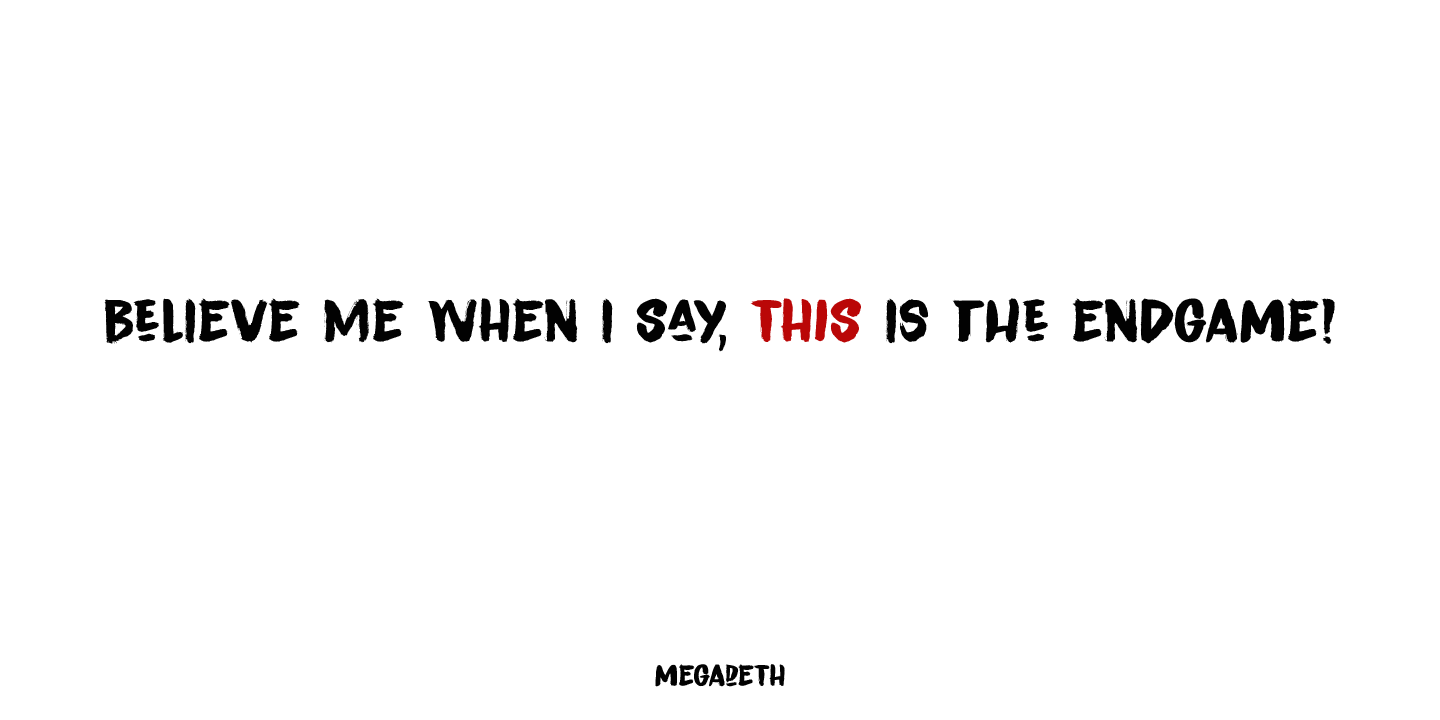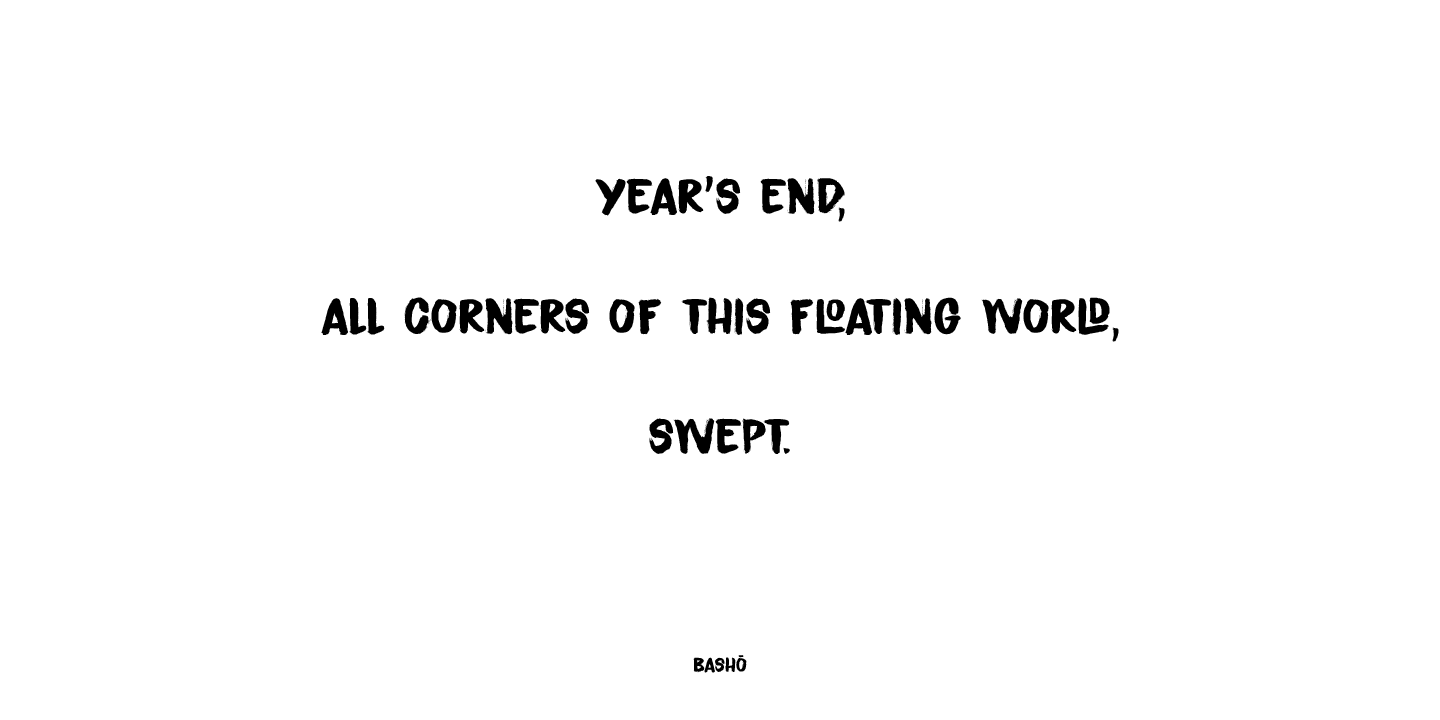
About Endgame
Endgame font was made using a very, VERY bad brush and Chinese ink. I had bought a bunch of brushes some time ago and I discovered that the hairs had been treated with some goo to keep them from sticking out. The goo didn\’t really come off, so when I…